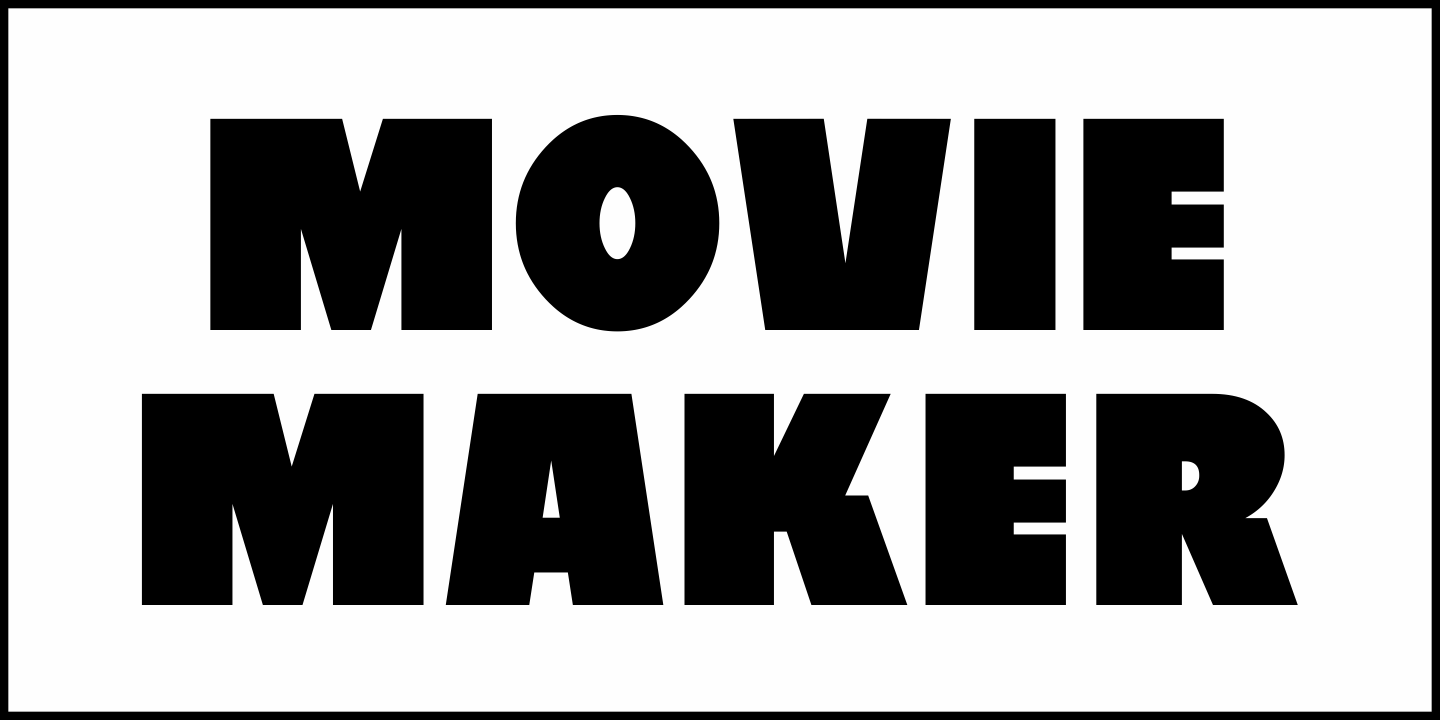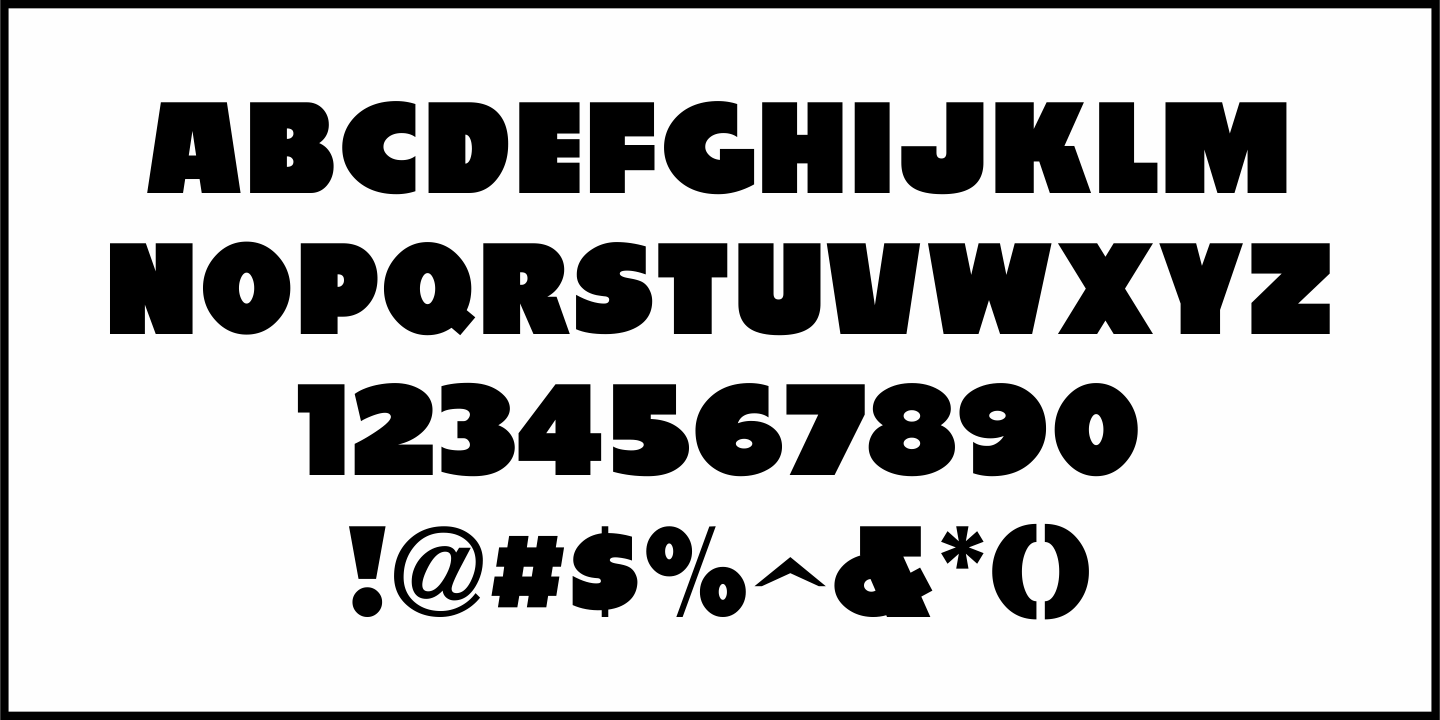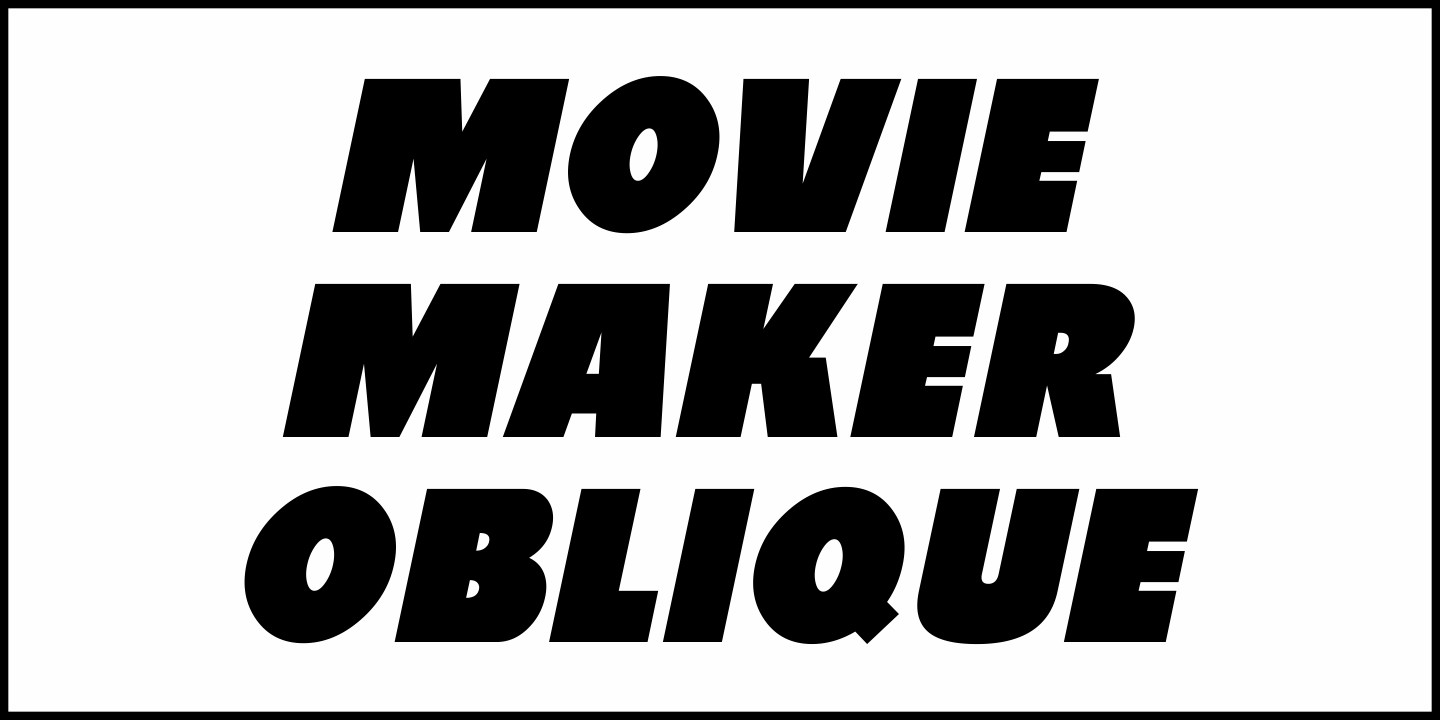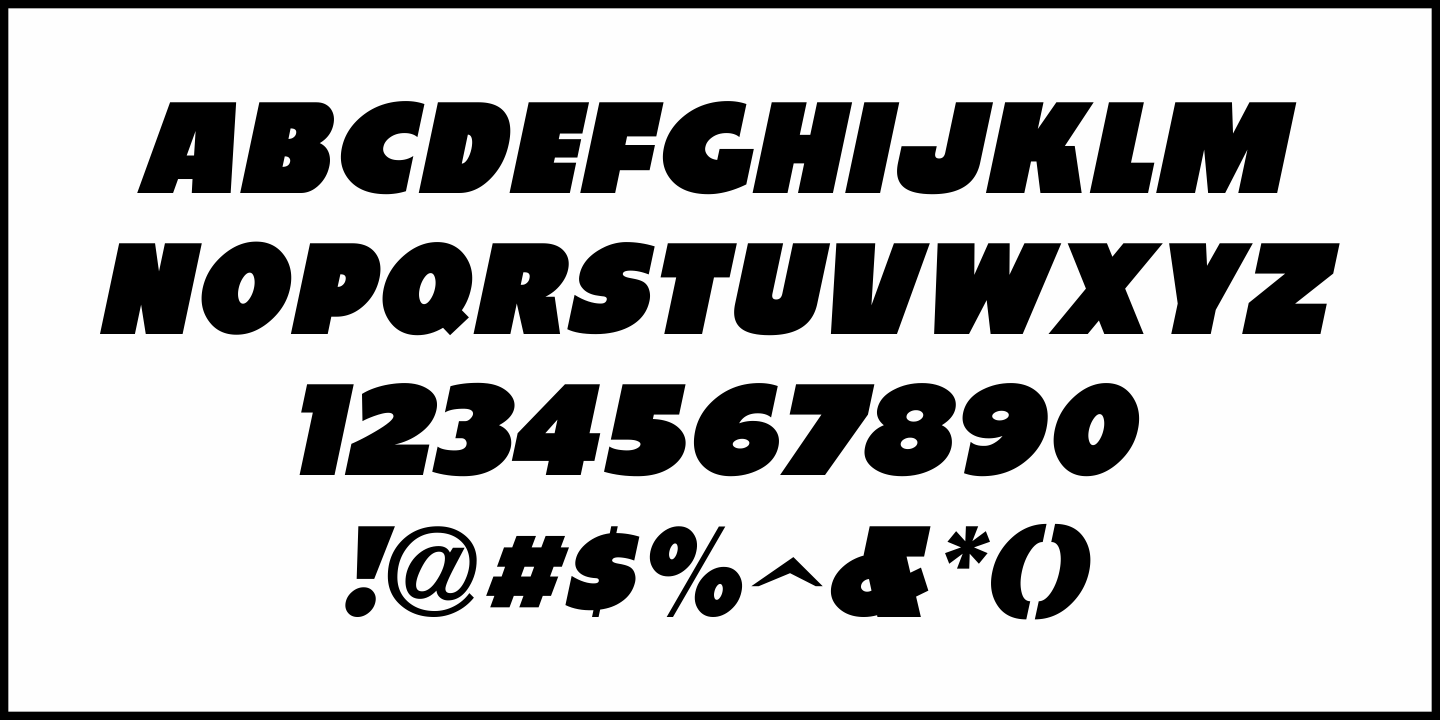
Movie Maker
Within the pages of the July 28, 1952 issue of Motion Picture Daily was an ad for the film "Park Row".  The hand lettered, ultra bold sans serif typography inspired Movie Maker JNL, which is available in both regular and oblique versions.